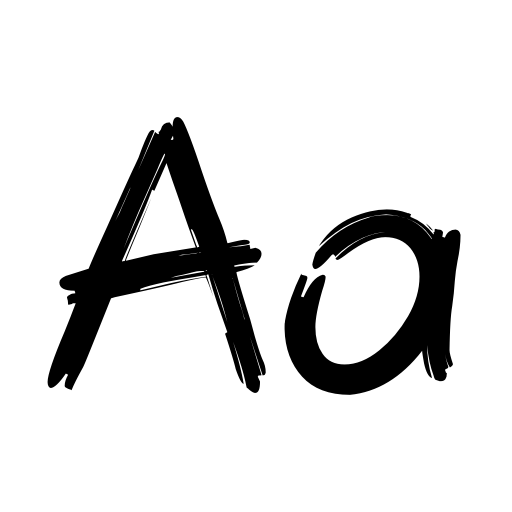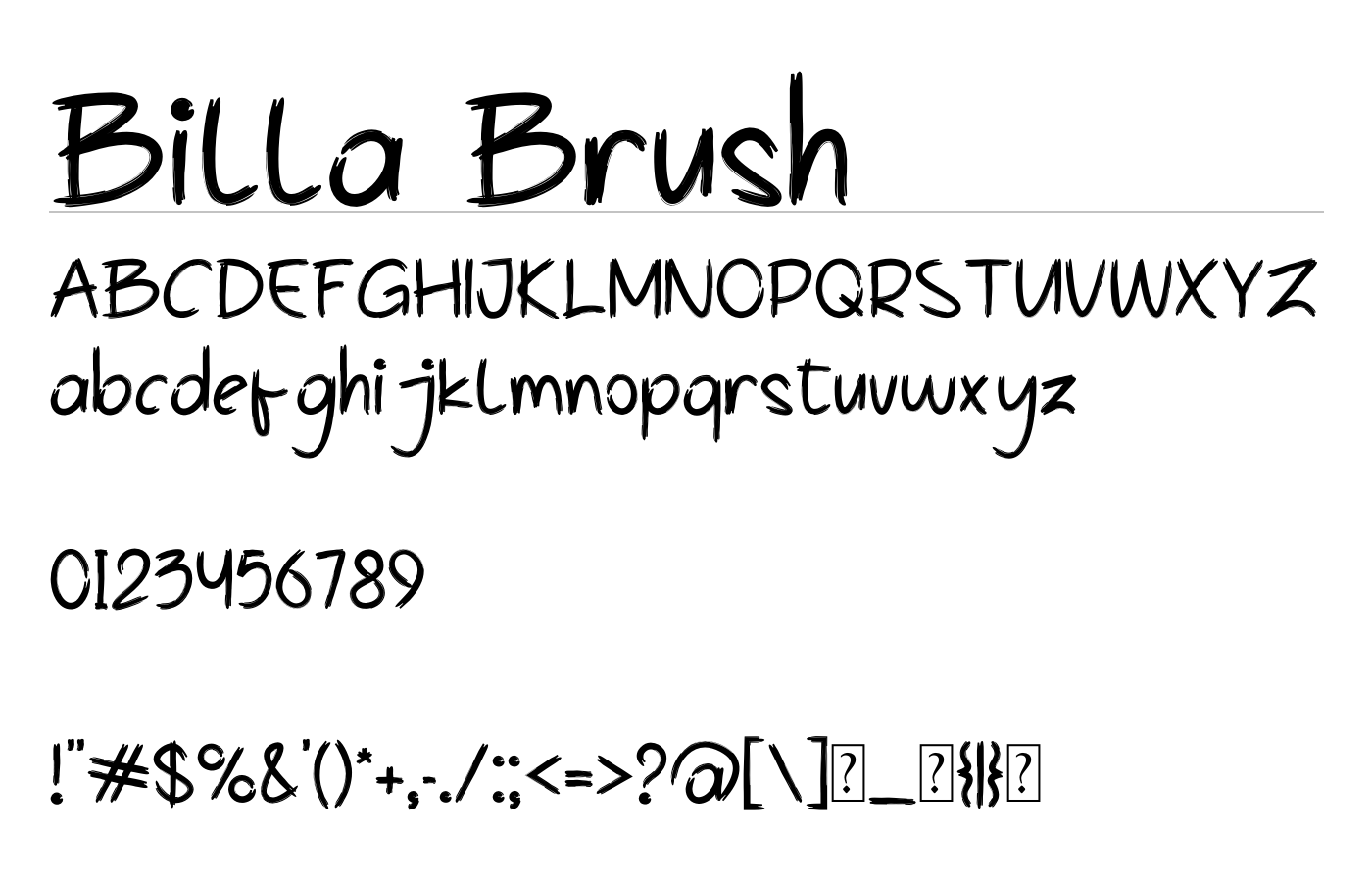
Billa Brush is a casual, handwritten brush font characterized by its lively, slightly irregular strokes that mimic natural brush pen writing. Its medium weight and playful style make it feel approachable and energetic, ideal for creative projects, informal branding, and eye-catching headlines where a personal, artistic touch is desired. This font works well for crafts, lifestyle brands, posters, and social media graphics, adding a friendly and dynamic personality to any design.
Billa Brush Font